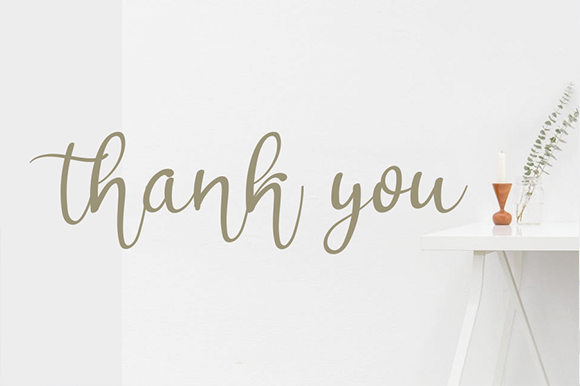
The Designer’s Delight: A Deep Dive into Bronahia Font
I’ll never forget the moment I stumbled upon Bronahia Font while working on a branding project for a trendy boutique hotel. I had spent hours scouring the internet for the perfect font, but nothing seemed quite right. That was until I laid eyes on Bronahia – its elegant, rounded letters and modern vibe instantly captivated me. In this article, I’ll share my love for Bronahia, its features, and how to make the most of it in your designs.
An Honest Review of Bronahia Font
So, what makes Bronahia so special? Let’s dive into the good stuff! 😊
- ✨ Unique and eye-catching design: Bronahia’s rounded letters and calligraphic influences make it stand out from more traditional fonts.
- ✅ Highly versatile: Whether you’re working on a logo, branding materials, or social media graphics, Bronahia adapts seamlessly.
- 💫 Contemporary feel: This font effortlessly blends classic elegance with a modern twist, making it perfect for projects that require a touch of sophistication.
Of course, no font is perfect, and Bronahia has a few minor quirks:
- 🤔 Limited use in very formal or traditional contexts: Bronahia’s playful nature might not be the best fit for projects requiring a more serious tone.
- ⚠️ Some letters may require manual kerning: As with any font, you might need to adjust the spacing between certain letters for optimal readability.
The Story Behind Bronahia Font
Bronahia was crafted with love by a talented type designer who aimed to create a font that would bring a touch of class and whimsy to creative projects. Inspired by traditional calligraphy and modern digital design, Bronahia strikes the perfect balance between elegance and playfulness.
| What makes Bronahia Font unique? | Bronahia’s unique blend of rounded letters, calligraphic influences, and modern feel sets it apart from other fonts. |
| Is Bronahia suitable for body text? | While Bronahia is stunning for headlines and titles, it might not be the best choice for lengthy body text due to its decorative nature. |